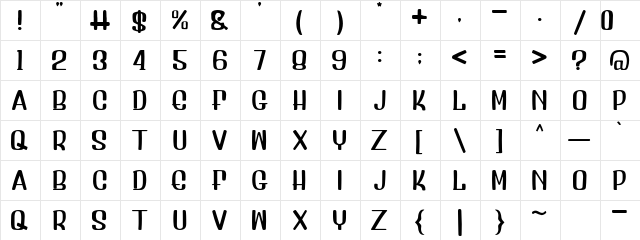
Artisa Font Regular
| Designer | REPI HILMANA |
Design Context for Artisa Font Typeface
Artisa Font is a composed and adaptable typeface that performs quietly and consistently across a wide range of design contexts.